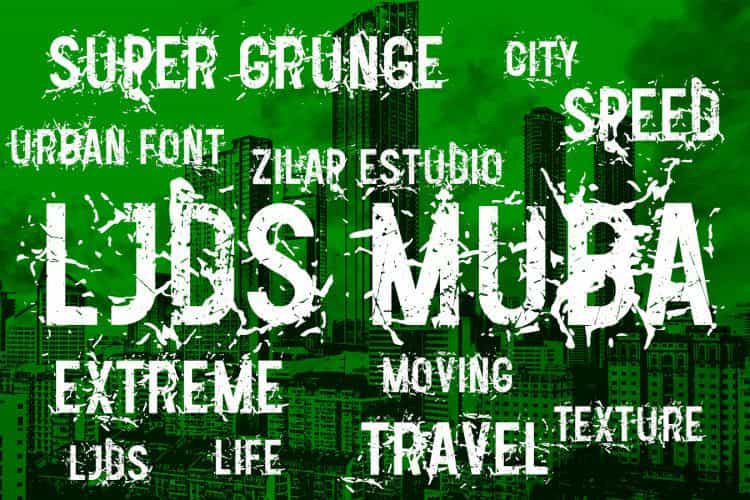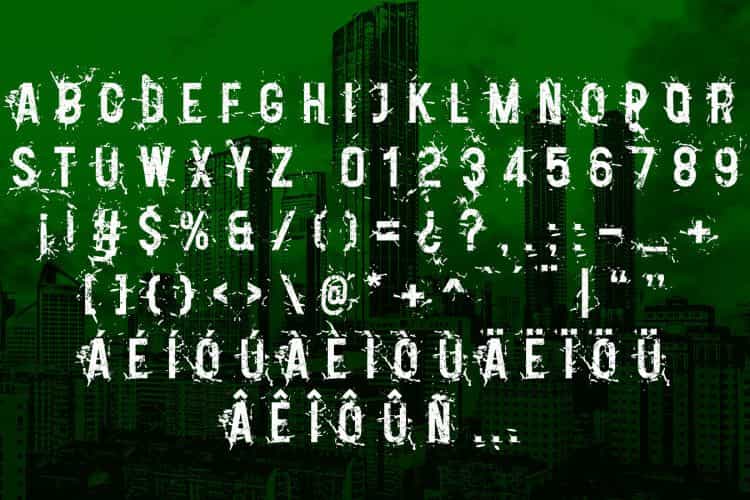
According to Zilap Font Team, LJDS Zilap MUBA is an urban-type font of LJDS, and the letters MU-sic urBAn are the letters embodied in the fountain because music and the urban environment are the main principles of this style.